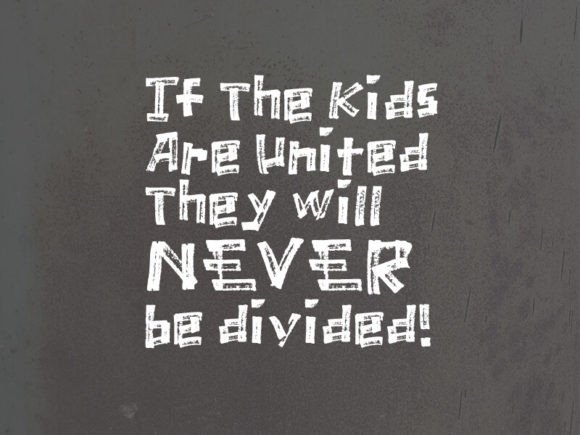
Unleash the Rebellion: Discover the Raw Energy of Marker Scratch Font
Step into the exhilarating vibes of ‘Marker Scratch’, a typeface that encapsulates the pulsating spirit of 80s alternative music. Richly textured and brimming with raw energy, this font accentuates unruly, gritty aesthetics that resonate deeply with the grungy subculture and reminiscent of that treasured mixtape from your best friend. Marker Scratch – the imperfectly perfect font that reinvents the dynamism of your designs with a rebellious edge.
Key Features of Marker Scratch Font
- Raw and Unbridled Energy: The Marker Scratch font embodies the unbridled spirit of the 80s alternative scene, making it perfect for designs that require a bold statement.
- Grungy Texture: With its richly textured appearance, this font brings a sense of grittiness and realism to your designs, evoking memories of mixtapes and punk rock.
- Rebellious Edge: The imperfectly perfect design of Marker Scratch adds a rebellious edge to your typography, setting it apart from more conventional fonts.
- Versatility: This font is not just limited to titles or headings; its unique style can be effectively used in various design contexts, from posters and flyers to digital interfaces.
The Design Inspiration Behind Marker Scratch
The Marker Scratch font draws its inspiration from the vibrant and eclectic world of 80s alternative music. This era, marked by its rejection of mainstream culture and embrace of the unconventional, has been a fertile ground for creative expression. The font’s design reflects this ethos, with its rugged texture and irregular lines that seem to pulse with the same energy as a live punk rock performance.
Designers and typographers have long been fascinated by the potential of hand-crafted and distressed fonts to add character and authenticity to their work. Marker Scratch takes this concept to the next level by offering a typeface that doesn’t just look like it was drawn by hand; it looks like it was scratched onto a surface with a marker, imperfections and all.
10 Creative Ways to Use Marker Scratch Font in Your Designs
- Music Album Art: Use Marker Scratch for album covers or music posters to instantly convey the genre and mood of the music.
- Posters and Flyers: Add a touch of rebellion and urgency to your promotional materials with this eye-catching font.
- Branding and Logos: For businesses that want to stand out with a bold and unconventional image, Marker Scratch can be a great fit.
- Digital Interfaces: Incorporate Marker Scratch into your app or website design to give it a unique and memorable character.
- Merchandise: T-shirts, stickers, and other merchandise can be elevated with the distinctive look of this font.
- Social Media Graphics: Stand out on social media platforms with bold, Marker Scratch-styled graphics and posts.
- Packaging Design: For products that appeal to a youthful, rebellious audience, Marker Scratch can add an extra layer of appeal.
- Event Branding: Use the font for event branding, especially for concerts, festivals, or any event targeting an alternative crowd.
- Art Projects: For artists and illustrators, Marker Scratch can be a valuable addition to your typographic arsenal, adding a raw, emotional quality to your work.
- Educational Materials: When teaching about the history of alternative music or the evolution of typography, Marker Scratch can serve as a practical example.
Typographic Tips for Maximizing Marker Scratch’s Impact
To get the most out of Marker Scratch, consider the following typographic tips:
- Contrast is Key: Use Marker Scratch in combination with cleaner, more minimalist fonts to create visual contrast and hierarchy in your designs.
- Play with Size: The impact of Marker Scratch can be significantly amplified by varying the font size. Large headings can be dramatic and attention-grabbing, while smaller text can add a subtle touch of texture.
- Color Matters: Stick to bold, vibrant colors that complement the grungy aesthetic of the font. However, don’t be afraid to experiment with different color schemes to match your brand or design theme.
- Emphasize with Effects: Consider adding text effects like shadows, outlines, or textures to further enhance the font’s raw, edgy feel.
Conclusion: Embrace the Rebellion with Marker Scratch Font
Marker Scratch is more than just a font – it’s a statement. It’s a declaration of independence from the ordinary, a nod to the rebellious spirit of 80s alternative music, and a tool for designers who want their work to stand out. With its raw energy, grungy texture, and imperfectly perfect design, Marker Scratch can add a dynamic, rebellious edge to any project.
Whether you’re a graphic designer looking for a unique typographic solution, a musician aiming to brand your music with an authentic look, or simply someone who appreciates the aesthetic of the unconventional, Marker Scratch is a font that can help you achieve your goals. So, step into the exhilarating vibes of Marker Scratch and let its unruly spirit transform your designs.